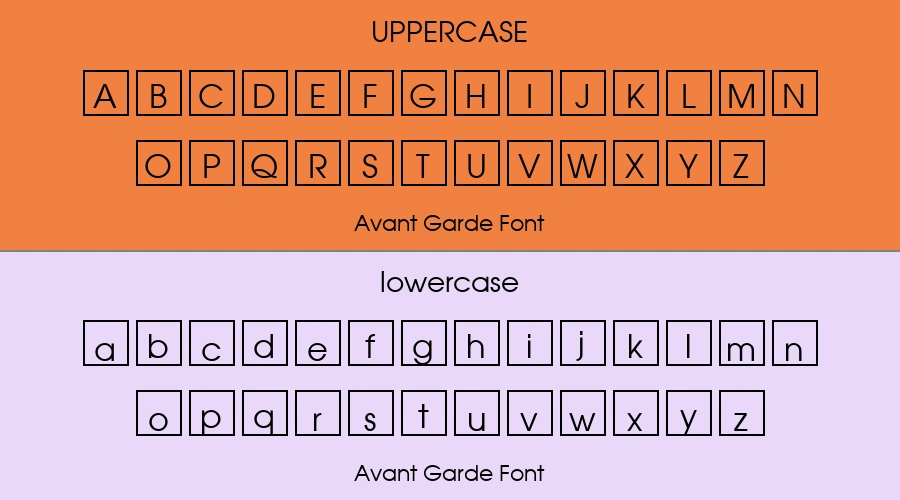
About Avant Garde Font
Avant Garde Font embodies typographic excellence through its masterful combination of alternates and signature style. Created for formal announcements, this typeface delivers exceptional versatility and literary appropriateness across all applications. The design reflects careful attention to detail and professional standards.
Advanced capabilities include distinctive width contrast and versatile technical characters, giving designers creative control. When used in compliance seals, Avant Garde Font exhibits remarkable body text reading. The harmonious balance between counter shape and historical context sets this typeface apart.